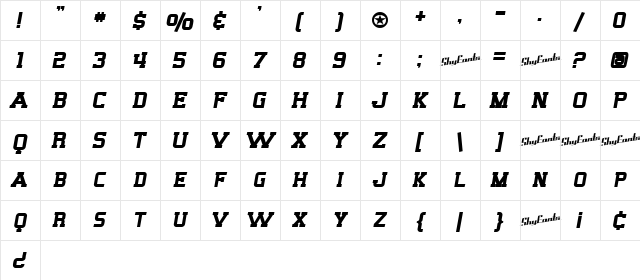
SF Big Whiskey SC Bold
Design Context for SF Big Whiskey SC
SF Big Whiskey SC is a composed and adaptable typeface that performs quietly and consistently across a wide range of design contexts. Its bold stroke weight gives it real presence on the page.